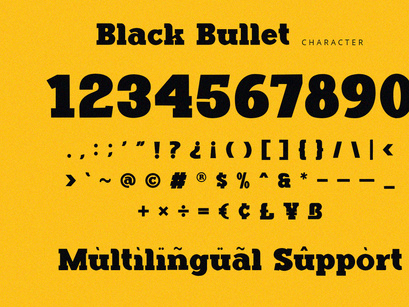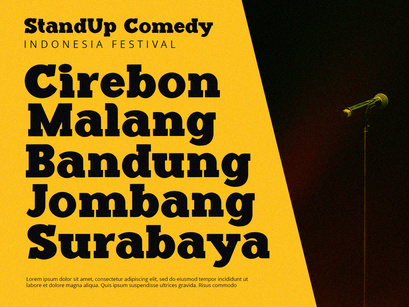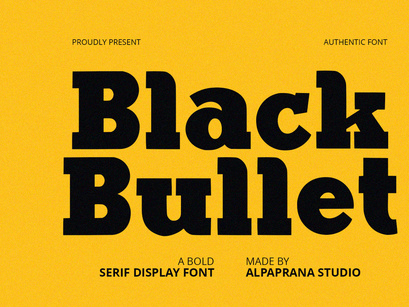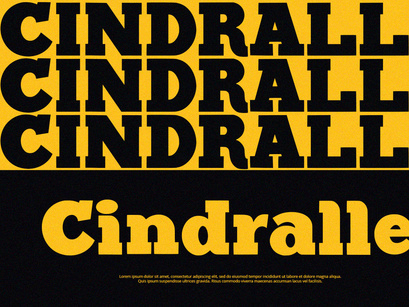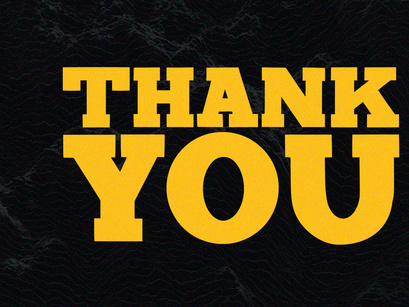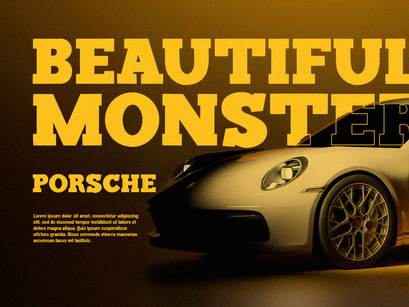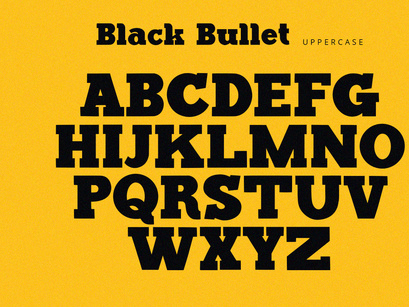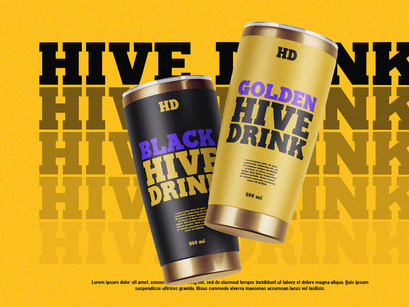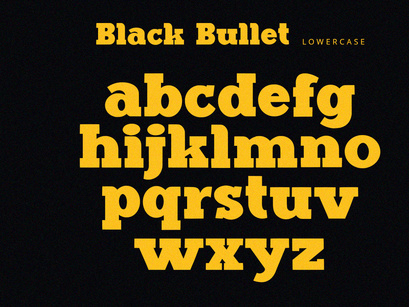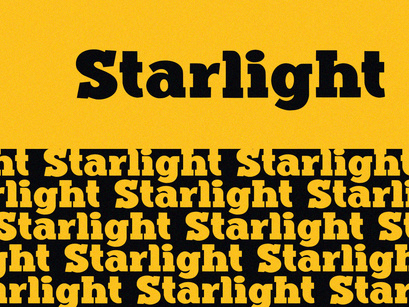
Black Bullet - Serif Font
Black Bullet is serif font with bold and classic feels. It will be perfectly used for Branding, Logo Design, Lettering, Logotype, Clothing, Poster, magazine, packaging, posters, shopping bags, t-shirts, book covers, photography, special events and other design project.